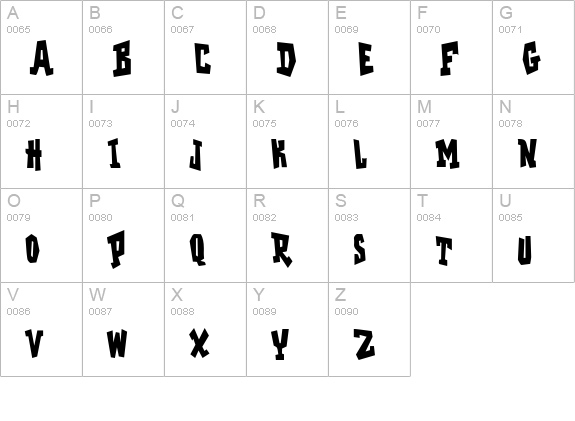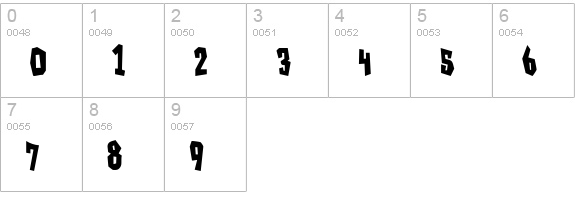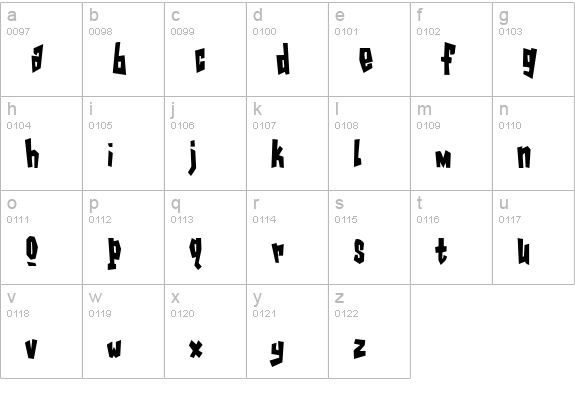
GarageShockCondensed Heavy Font Details
GarageShockCondensed Heavy is a heavy, high-impact variant in the GarageShockCondensed typeface family \xE2\x80\x94 well suited to high-impact headlines, posters, and display advertising.
GarageShockCondensed Heavy font is a bold and powerful typeface that exudes a sense of raw energy and rock 'n' roll attitude. With its condensed and heavy design, this font is perfect for creating impactful headlines, posters, and logos that demand attention. The thick strokes and exaggerated letterforms give GarageShockCondensed Heavy font a strong and commanding presence on the page. Each character is meticulously crafted to maintain legibility while also showcasing its edgy and slightly distressed aesthetic. This font is sure to make a statement and leave a lasting impression on your audience. One of the best things about GarageShockCondensed Heavy font is that it is freely available to download at FontsMarket.com. This means that you can start using this amazing font in your projects right away, without any additional cost. Whether you're a designer, a musician, or someone who simply wants to add a touch of rebelliousness to their creative work, GarageShockCondensed Heavy font is the perfect choice. So why wait? Head over to FontsMarket.com, and get your hands on this versatile and eye-catching font. With GarageShockCondensed Heavy font, you can unleash your creativity and make a bold statement, all while enjoying the freedom of using a high-quality font that's available for free.